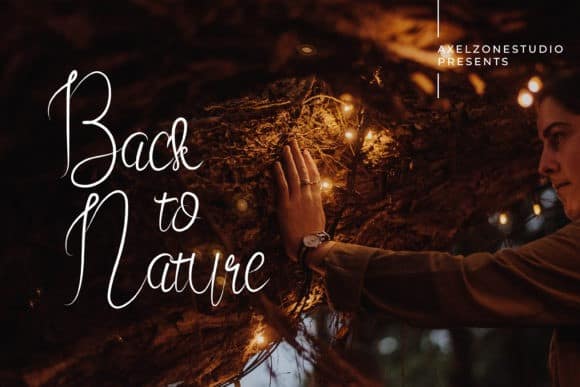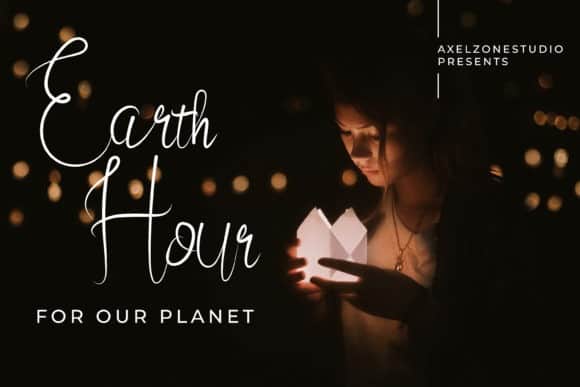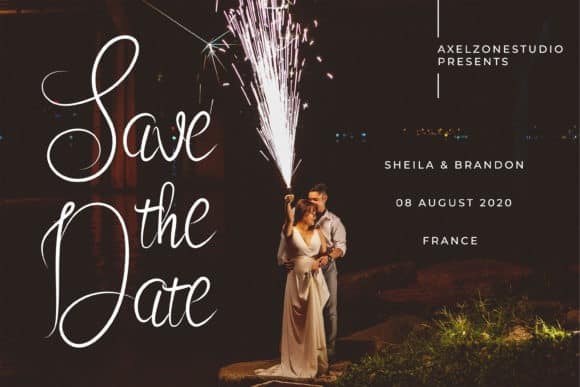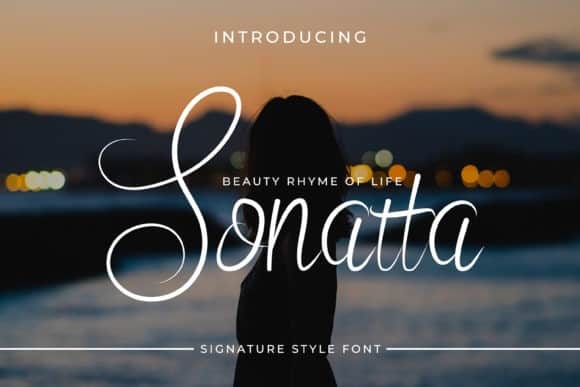
Sonatta Script Font is playful hand-drawn font for display which is suitable to use for fashion and related design. This font also perfect for branding projects, logo, wedding designs, social media posts, advertisements, product packaging, product designs, label, photography, watermark, invitation, stationery and any projects that need bold handwriting style.